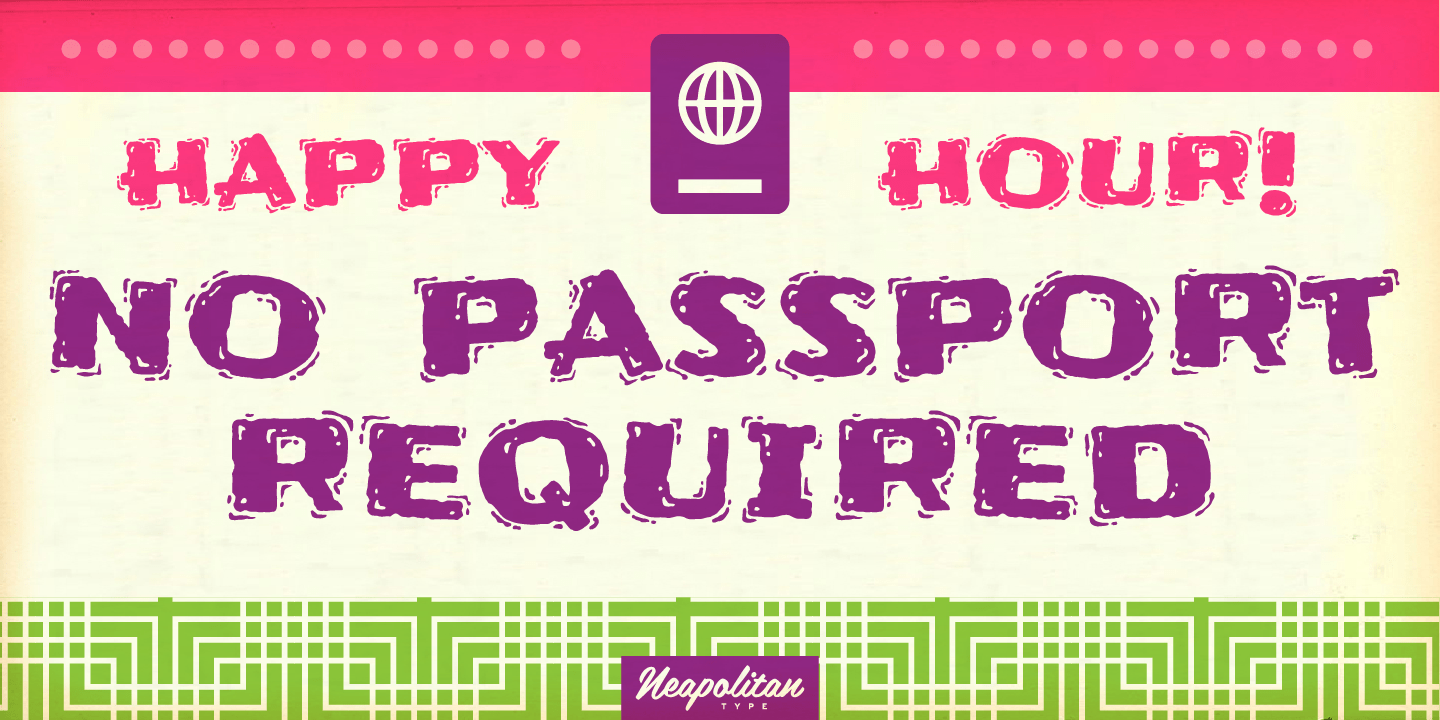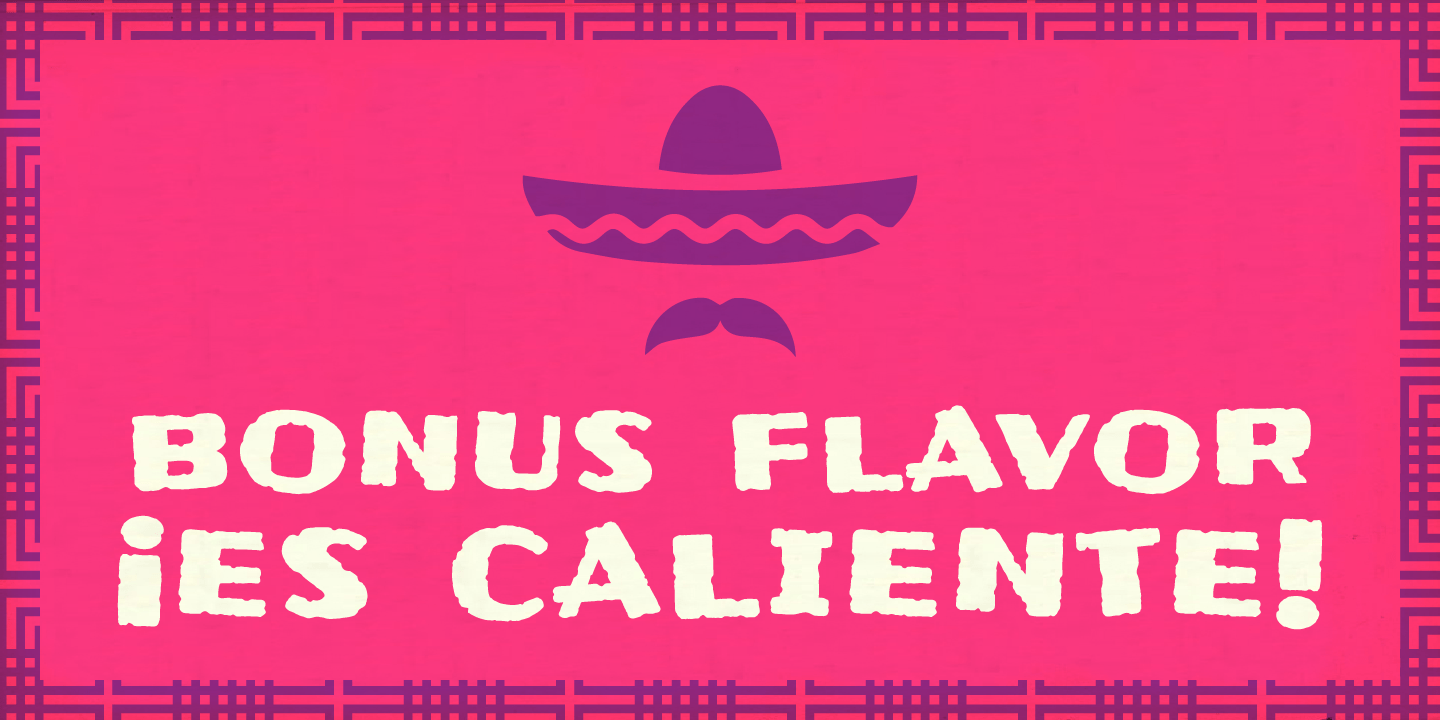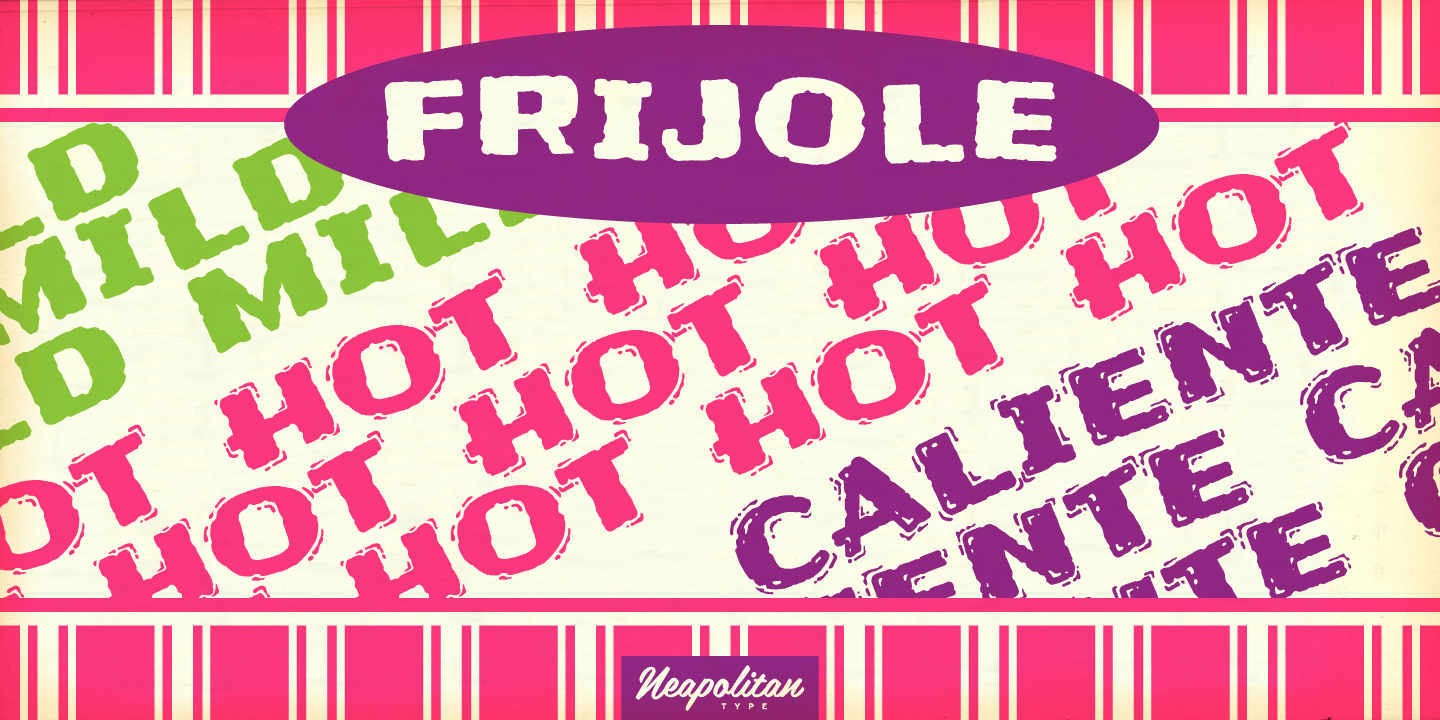
Frijoles
About Frijoles
What\’s on your font menu tonight? The same old boring beans? Then why not try Frijoles! Its a fresh new family that\’s anything but re-fried. And it\’s sure to be a hit when you\’re cooking up something that needs to be bold, spicy and satisfying! Another…